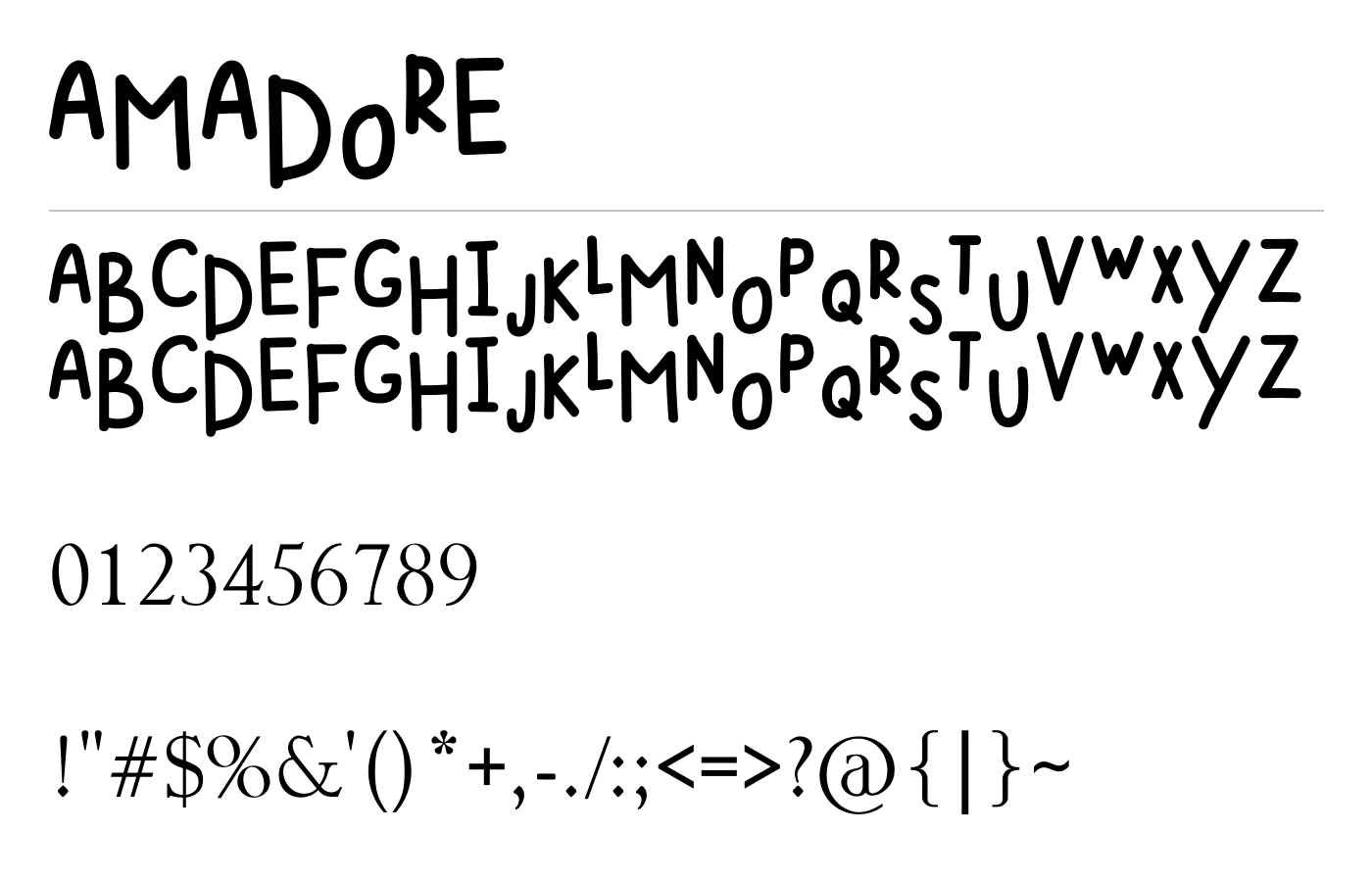
Amadore is a playful, hand-drawn sans serif font with an informal and friendly vibe, characterized by its irregular, rounded letterforms and varying stroke widths. Its tall, narrow uppercase letters and whimsical style make it perfect for creative projects, children's books, casual branding, and headlines that benefit from a warm, approachable personality. This font adds a lighthearted, personal touch wherever a fun and unique look is needed.
AMADORE Font
About AMADORE Font